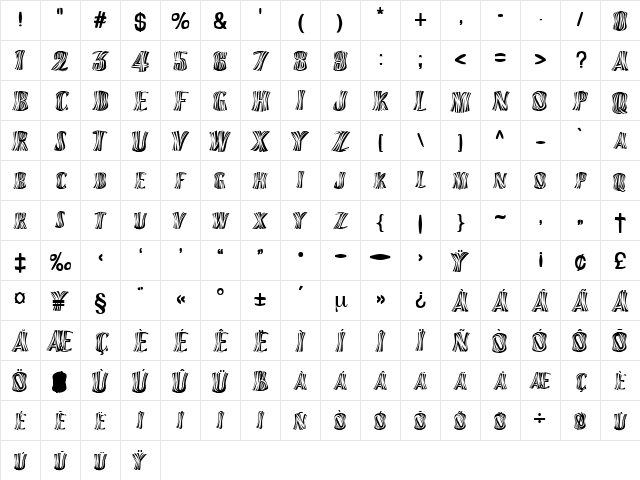
Orinoco Regular
Design Context for Orinoco
Orinoco is a composed and adaptable typeface that performs quietly and consistently across a wide range of design contexts.